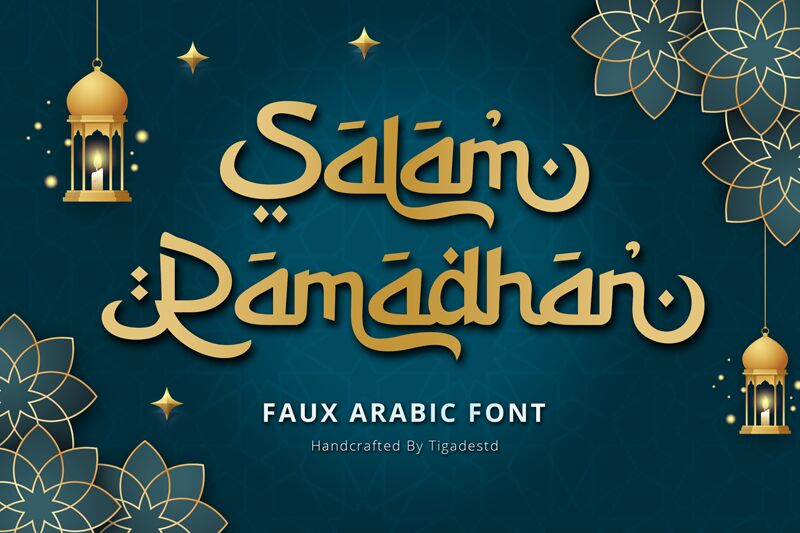
Salam Ramadhan Regular
Experience the essence of Middle Eastern culture with Salam Ramadhan, the faux Arabic typeface designed by Tigadestd. Its semi-light weight and expanded width make it perfect for headlines, titles, and posters that aim to evoke a sense of elegance and grandeur. This font's unique design features elaborate curves and strokes that resemble traditional Arabic calligraphy, while also maintaining readability for non-Arabic speakers. Ideal for branding campaigns or cultural events, Salam Ramadhan adds a touch of exotic flair to any project. Try it today and elevate your designs to a whole new level!